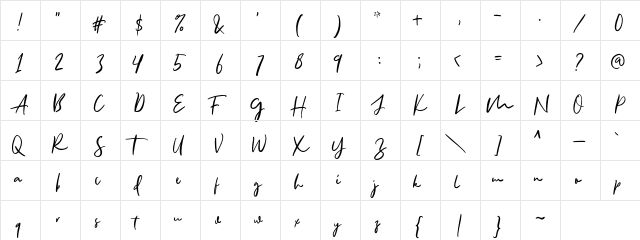
AllisonStyle Script DEMO Regular Font Preview
AllisonStyle Script DEMO Regular
AllisonStyle Script DEMO Regular Font Details
| Foundry | Sarid Ezra |
| Designer | Sarid Ezra |
Design Context for AllisonStyle Script DEMO Typeface
AllisonStyle Script DEMO brings a calligraphic fluidity to the page — its connecting strokes and expressive curves give it an unmistakably human quality.
Font Pairing: Combine AllisonStyle Script DEMO with a simple geometric sans for maximum contrast — the tension between flowing curves and clean structure is a classic typographic pairing.
Pro Tip: Pair AllisonStyle Script DEMO with a clean sans-serif for supporting text. The contrast between fluid script and geometric structure creates an elegant typographic hierarchy.